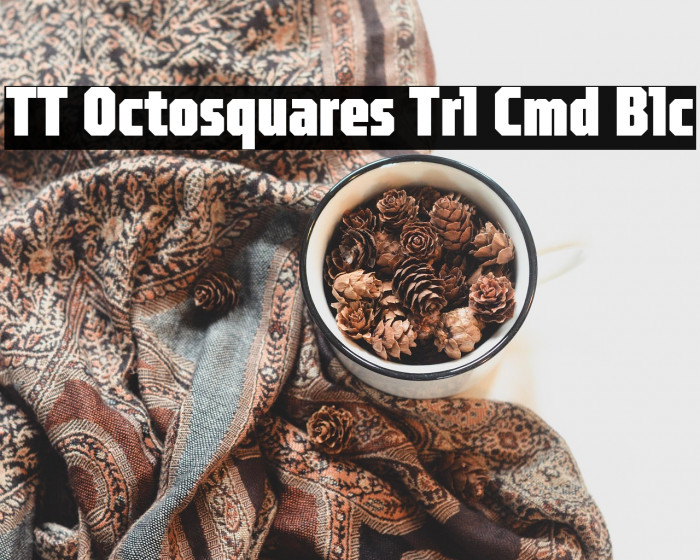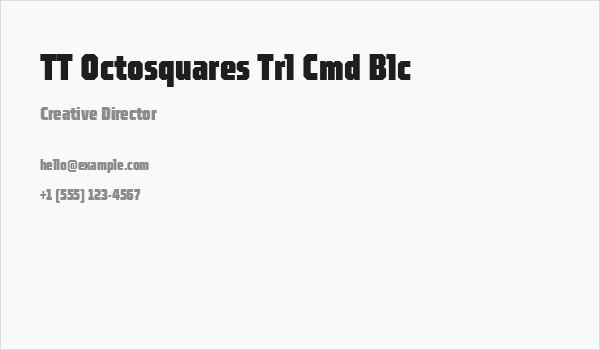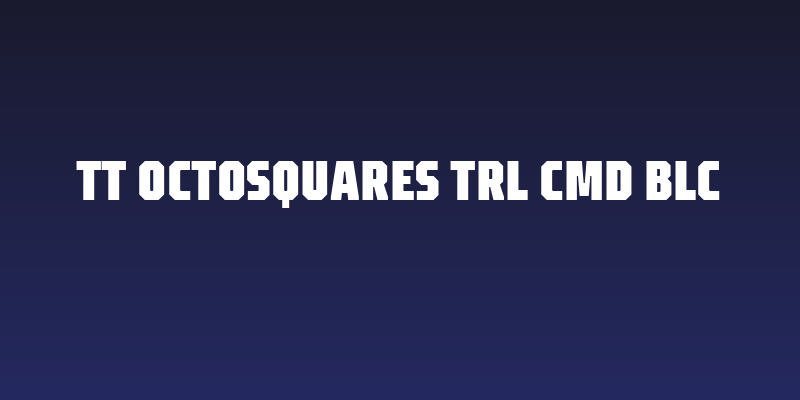
TT Octosquares Trl Cmd Blc Font
TT Octosquares Trl Cmd Blc Description
This font features a bold and commanding presence with its geometric and blocky design. The characters are constructed with sharp, angular edges and a uniform thickness, giving it a strong and robust appearance. The uppercase and lowercase letters maintain a consistent style, while the numerals and special characters complement the overall aesthetic. Its design is reminiscent of industrial and futuristic themes, making it suitable for projects that require a modern and impactful look.
| Proposed Projects | Ideal for branding, posters, headlines, and any design requiring a bold statement. |